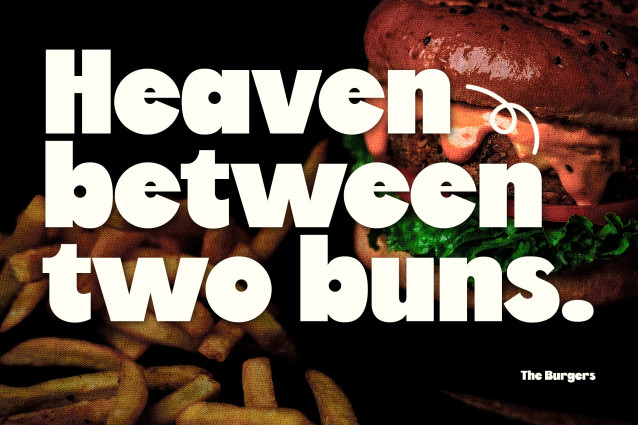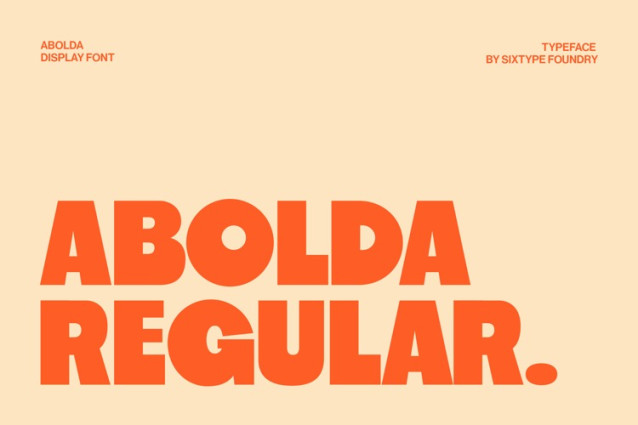
Abolda Font
Abolda Font is a bold display typeface designed to deliver strong visual impact while maintaining a friendly and approachable feel. With its thick strokes, rounded shapes, and solid proportions, Abolda brings a confident, modern personality to any design.
The letterforms are clear, playful, and highly legible at large sizes, making this typeface perfect for attention-grabbing headlines and expressive layouts. Abolda works especially well in designs that need to feel bold, fun, and contemporary without being aggressive.